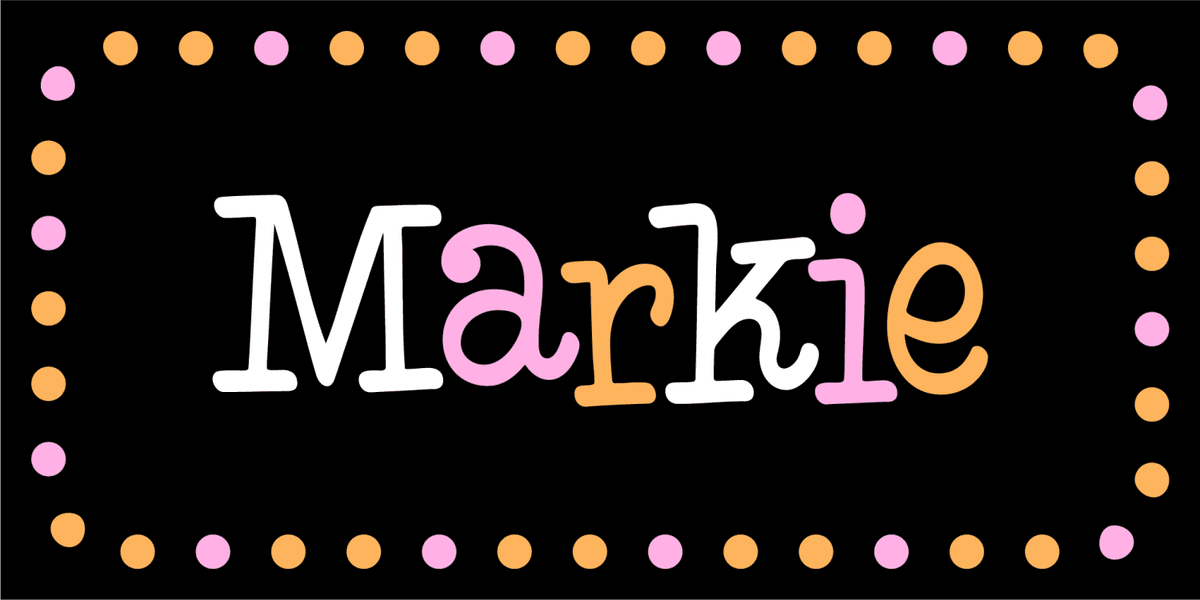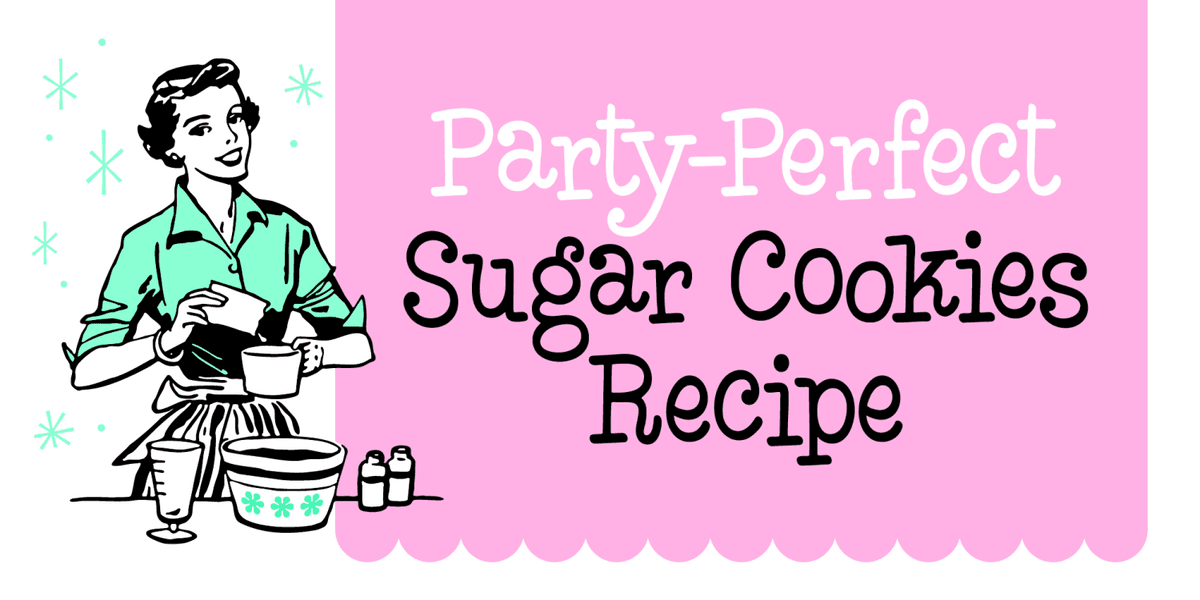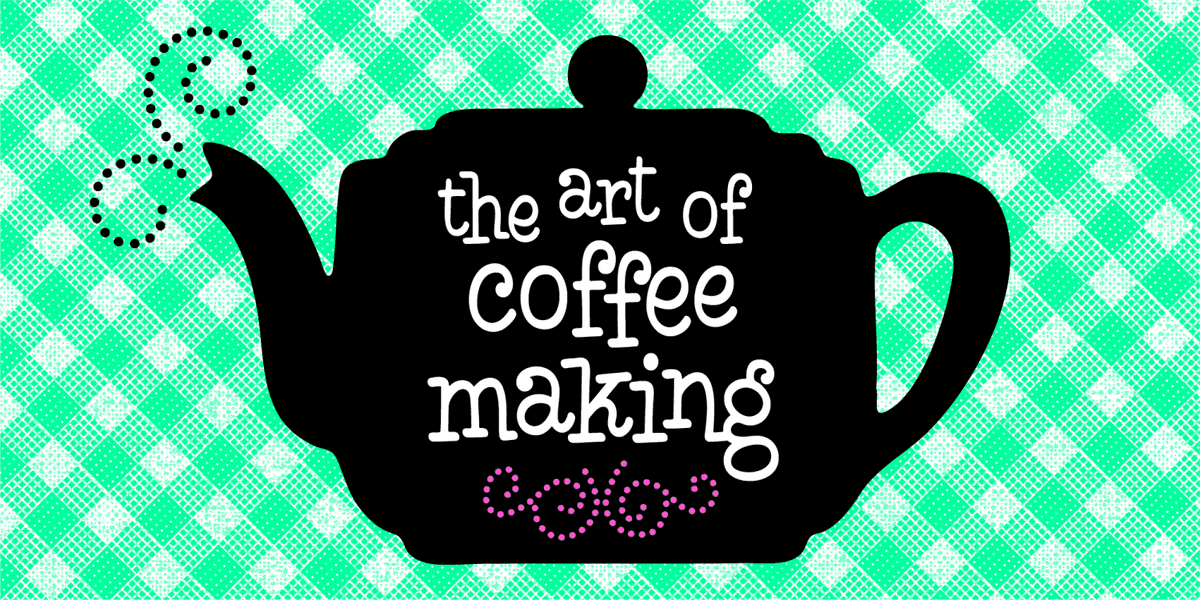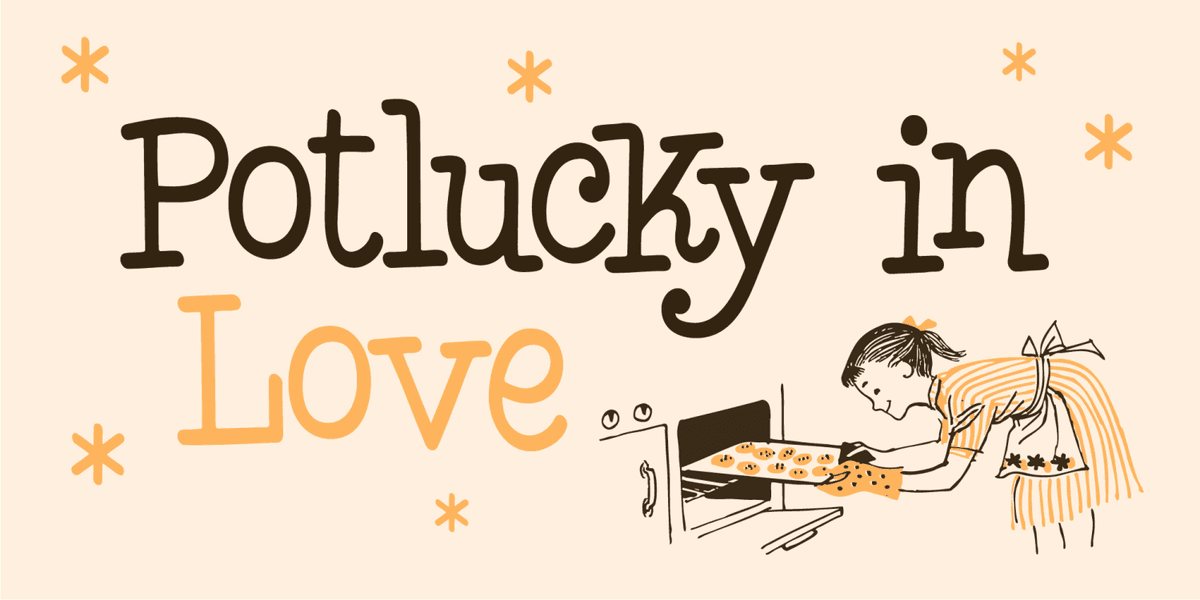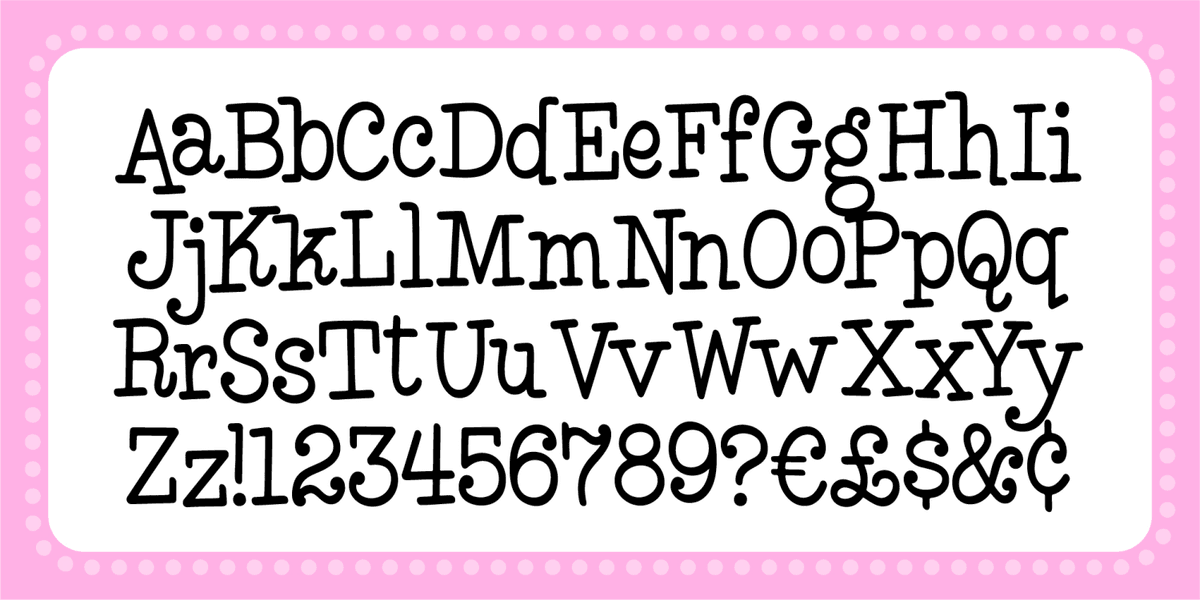
A lively, bouncy serif bursting with retro charm! Inspired by 1950s diner signs, playful TV title cards, and mid-century whimsy, Markie dances across the page with curvy strokes and a touch of funky flair. Famously used for eye-catching logos, cheerful headlines, and anything that needs a dose of vintage fun!